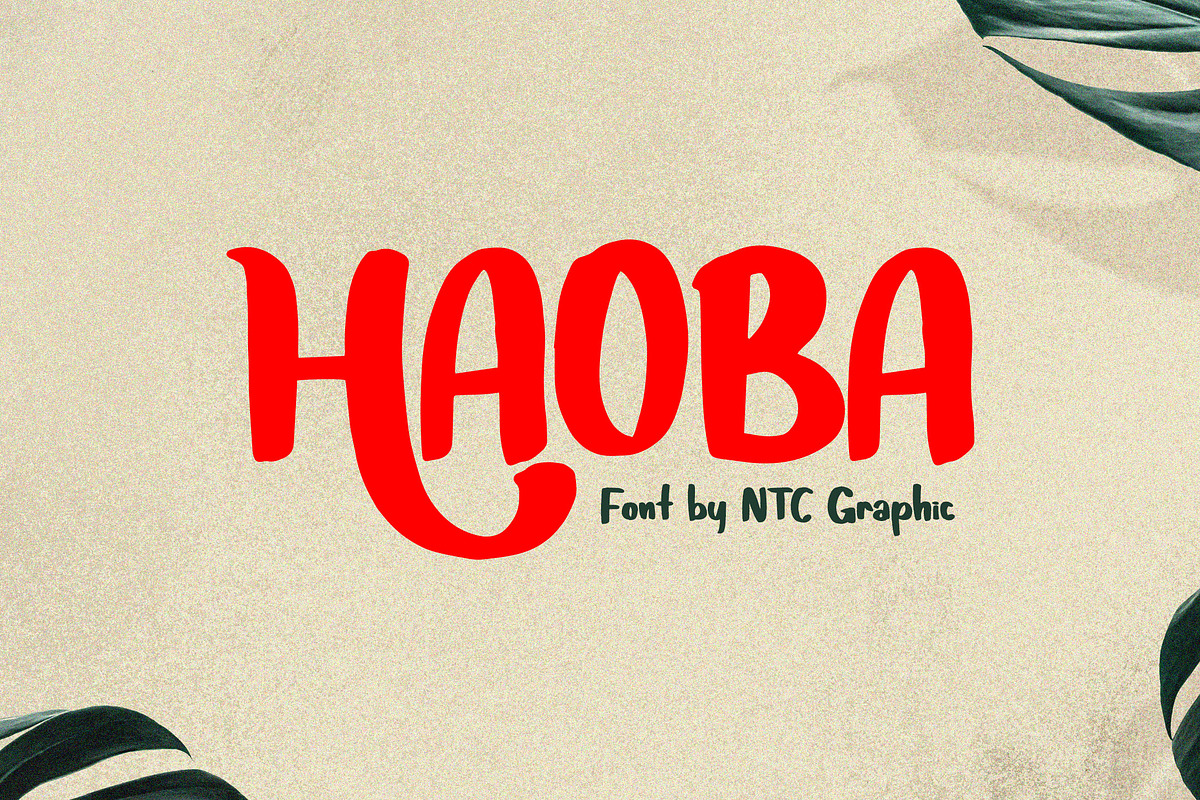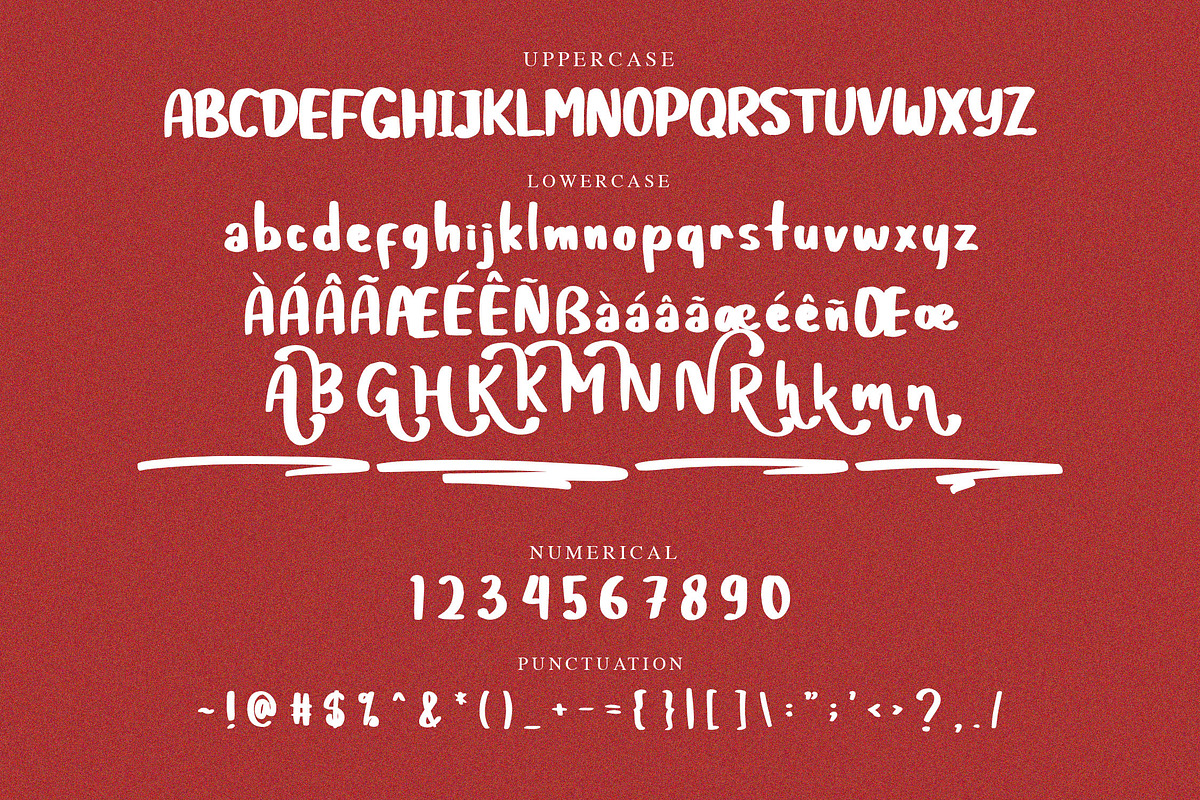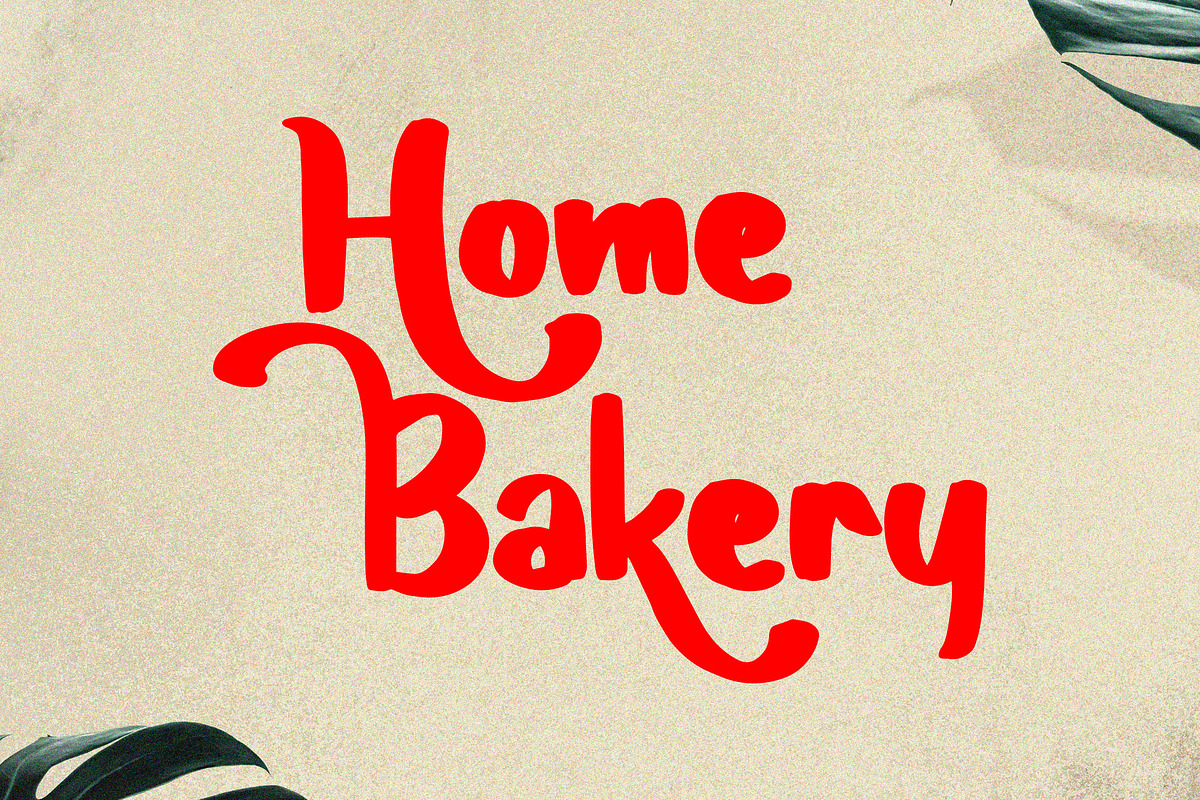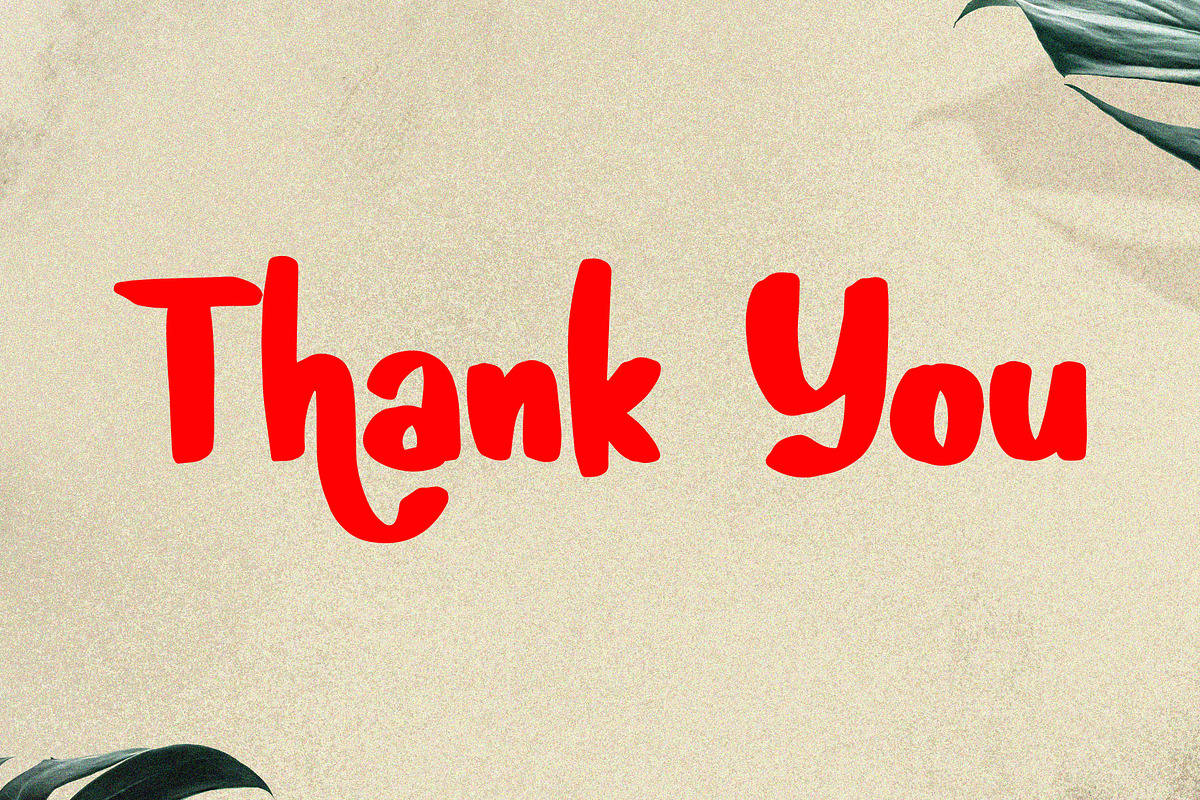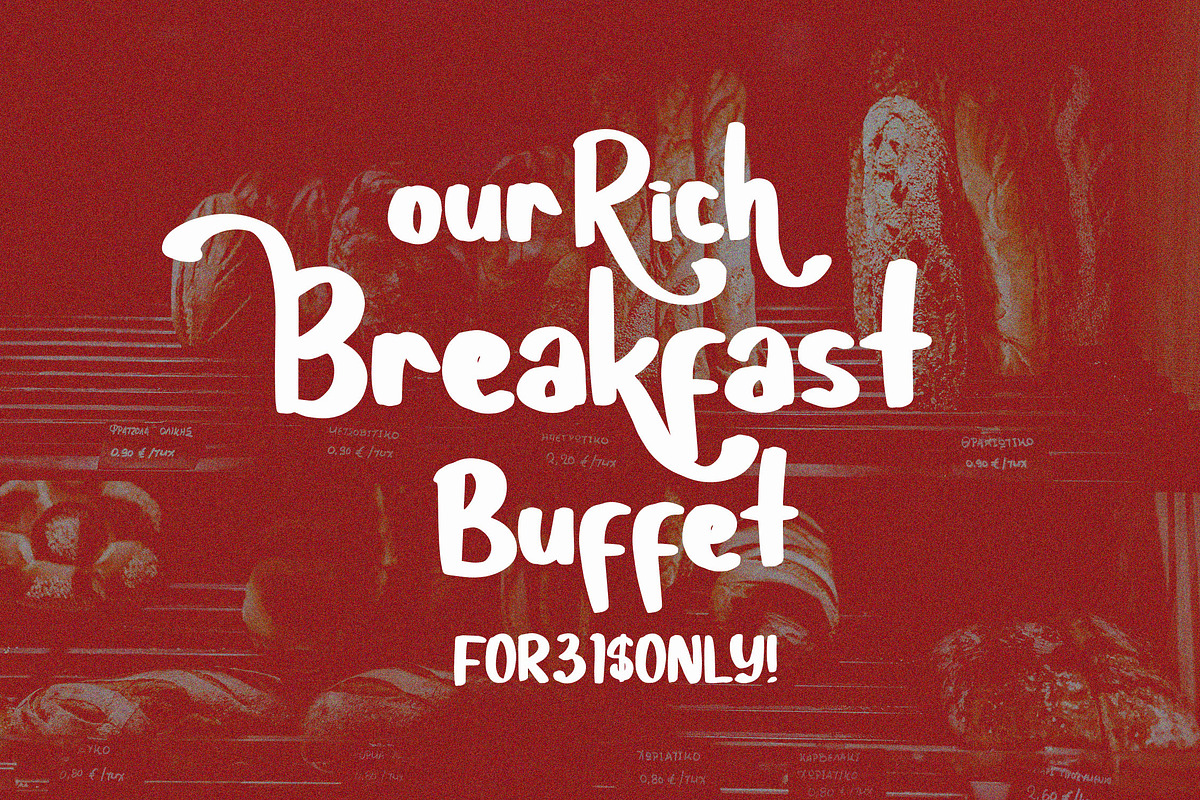
HAOBA Playful Brush Font
HAOBA is a playful display font with handwritten brush style. Is a font style that is made with unique shapes font characters are really good. Can be applied to support the graphic appearance of the product to be more attractive.
- Stylistic Alternate